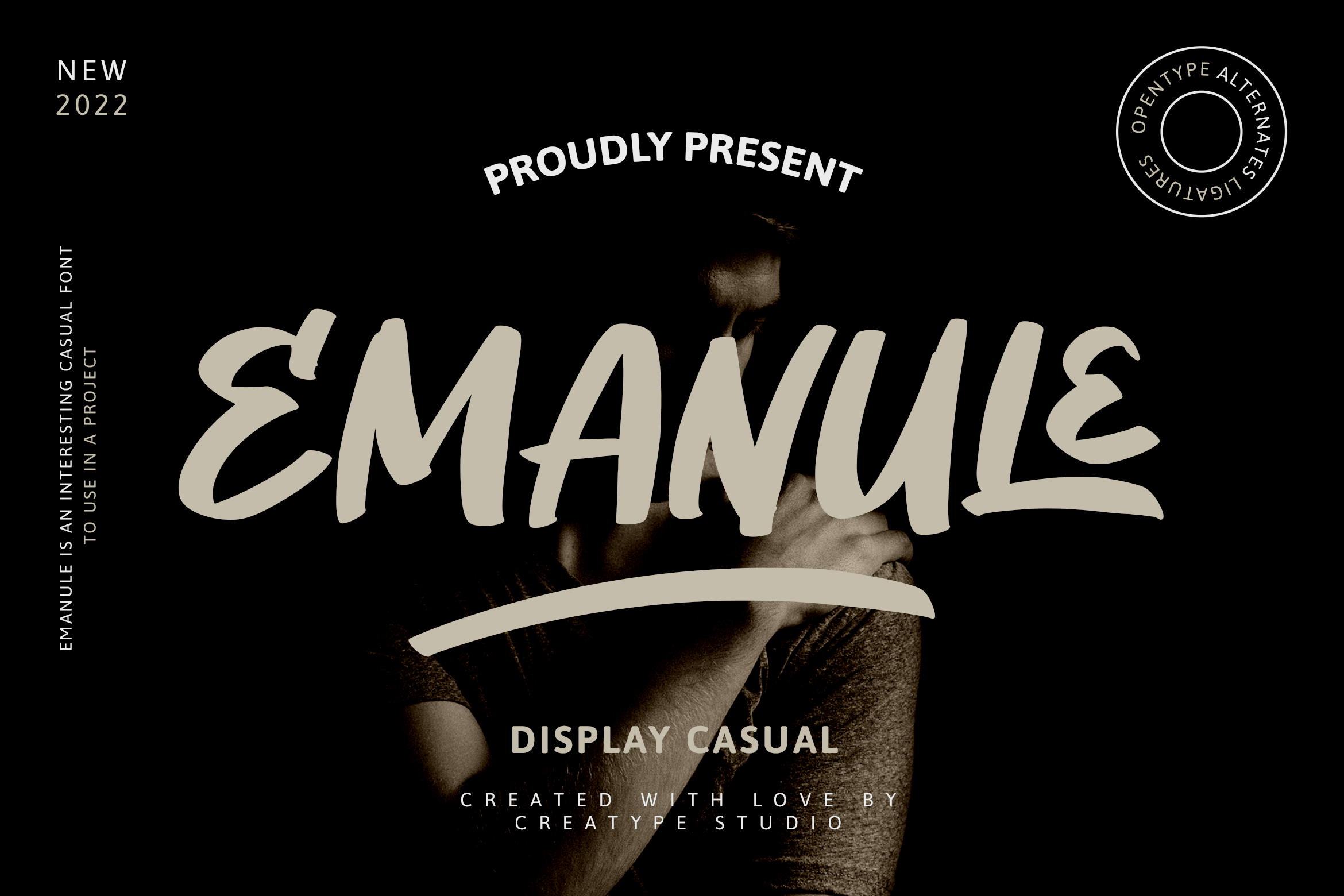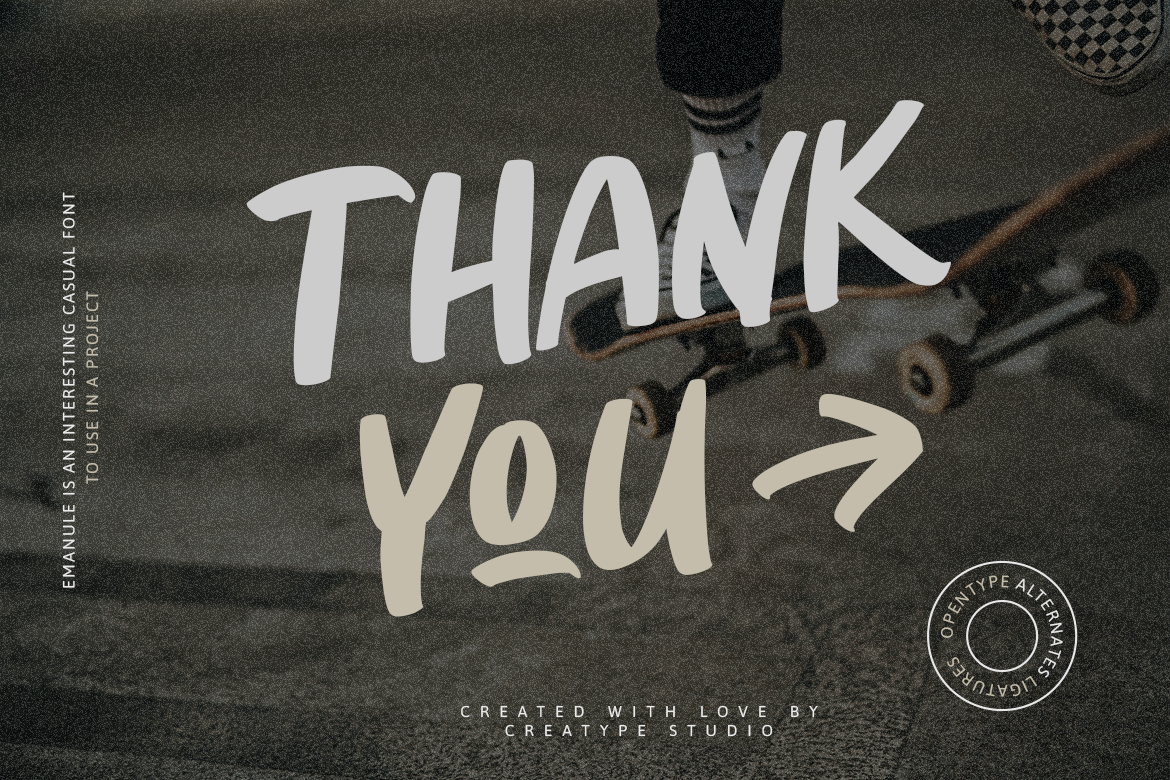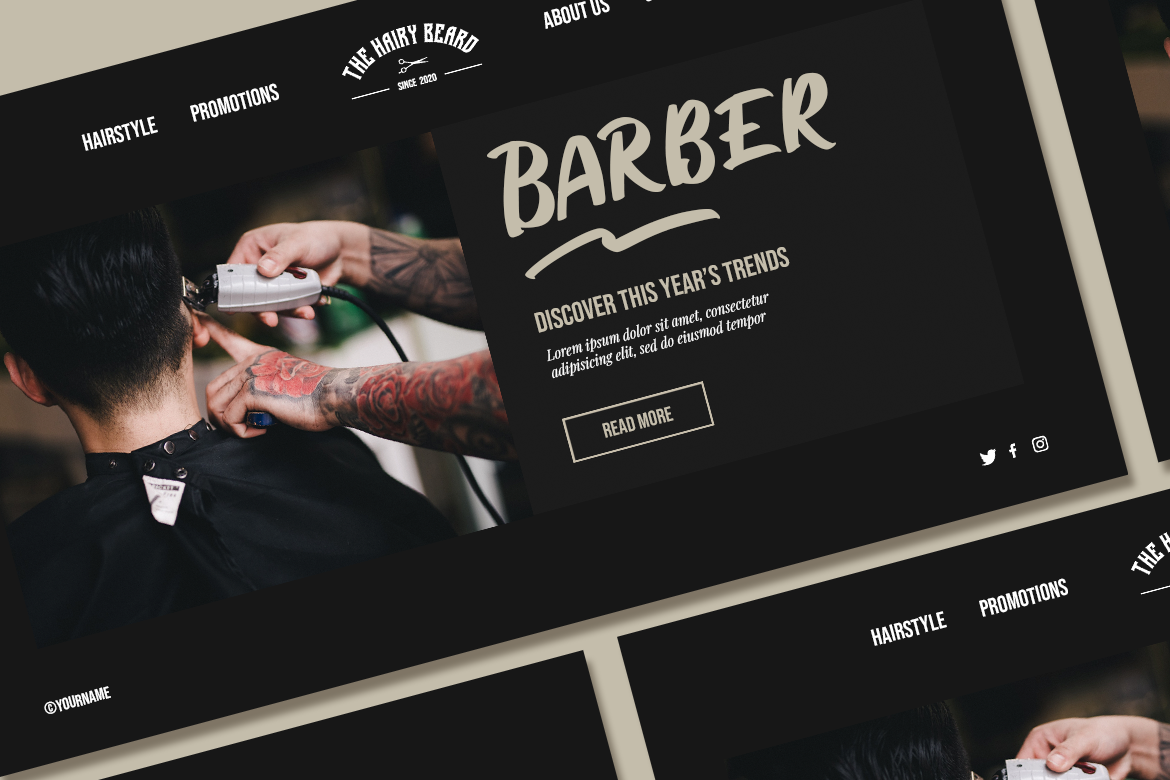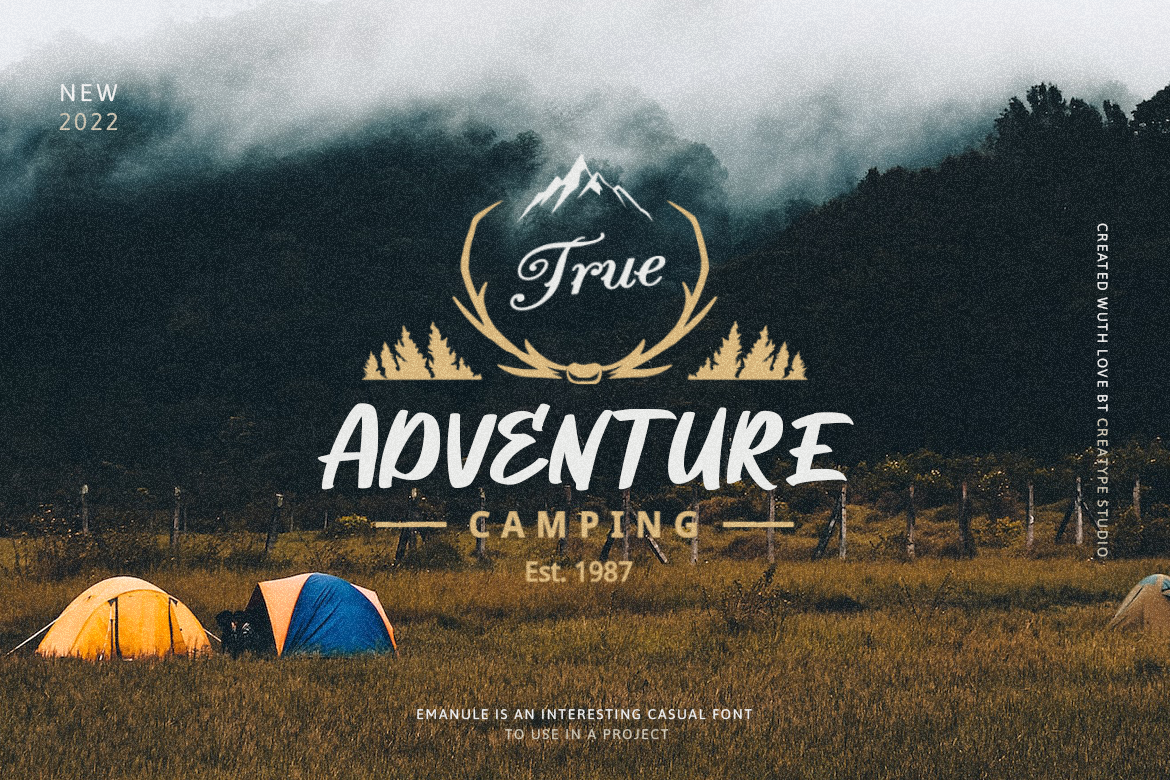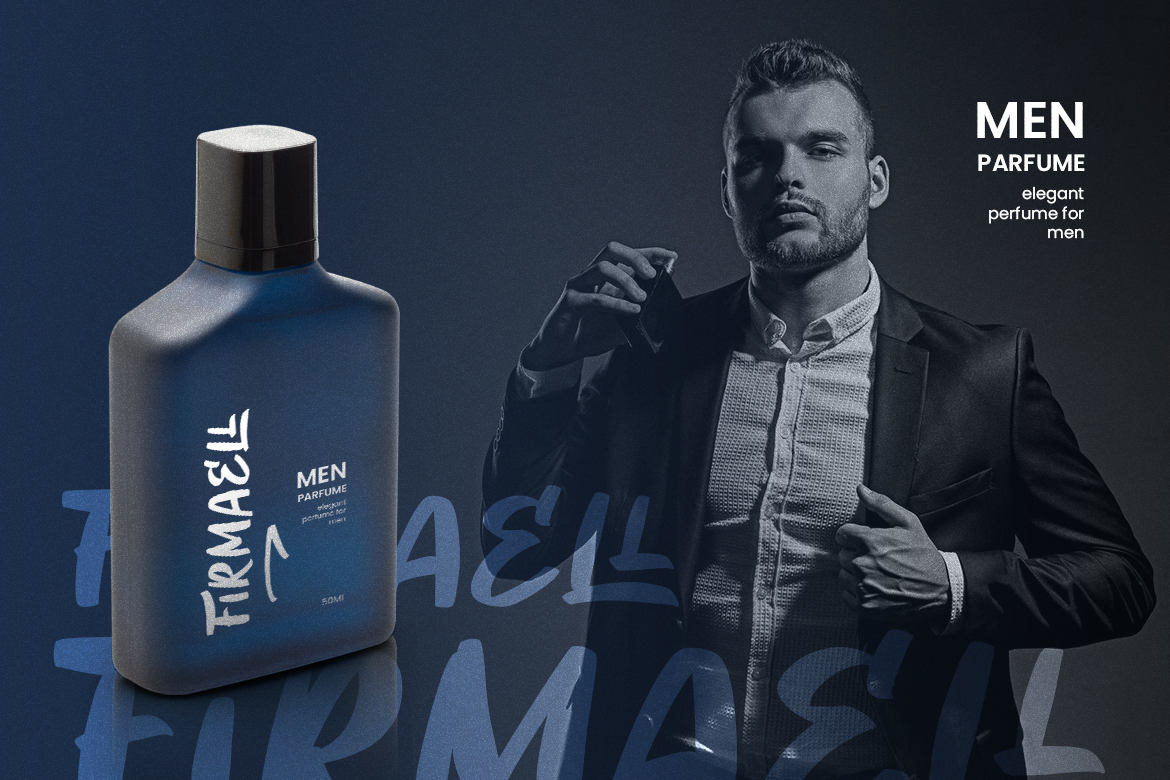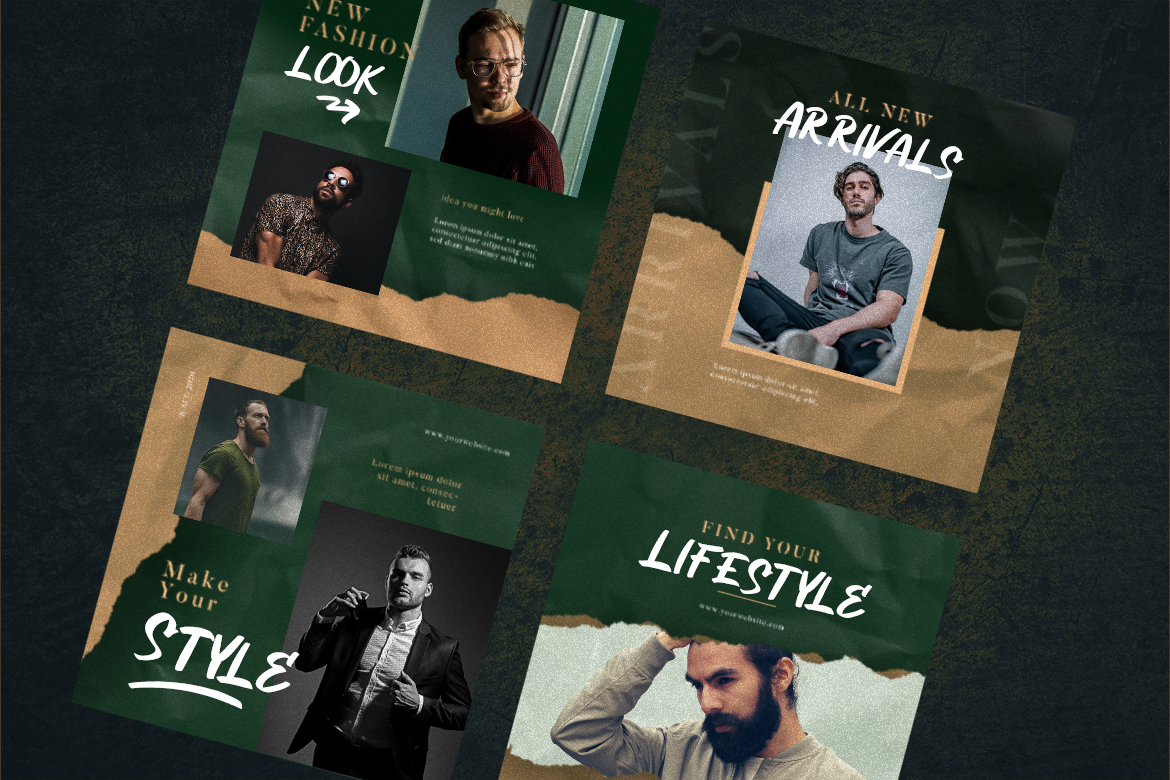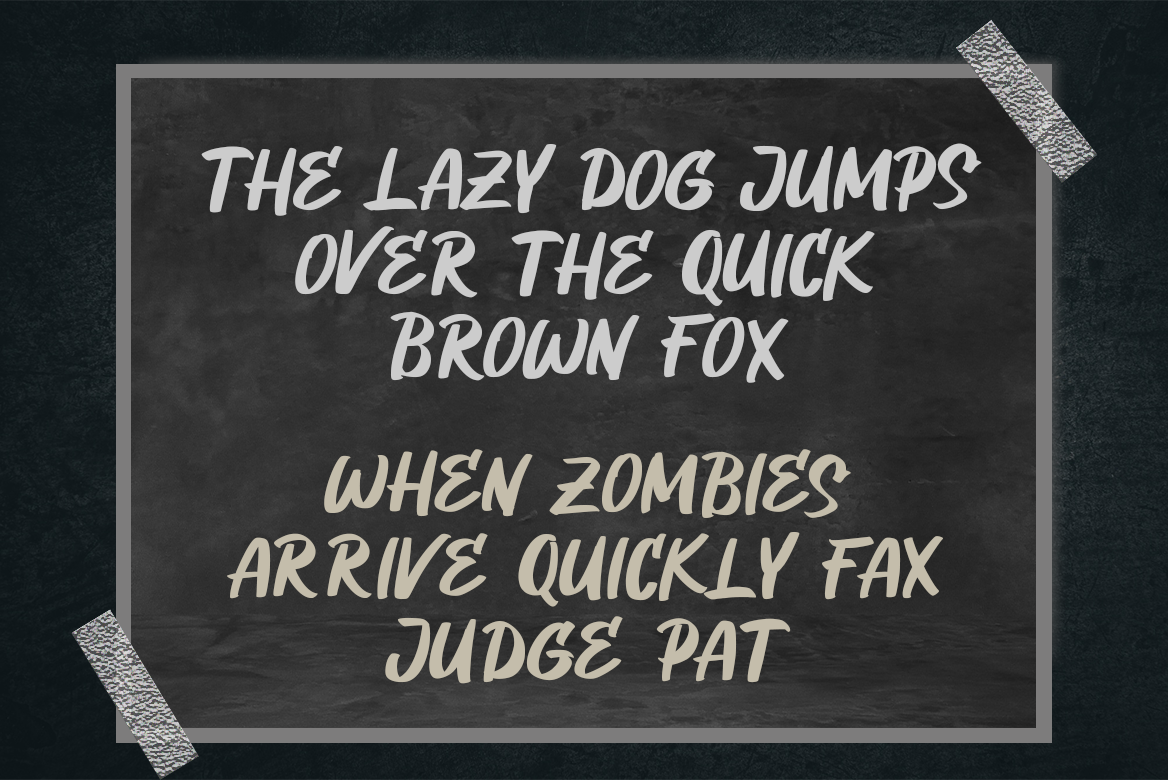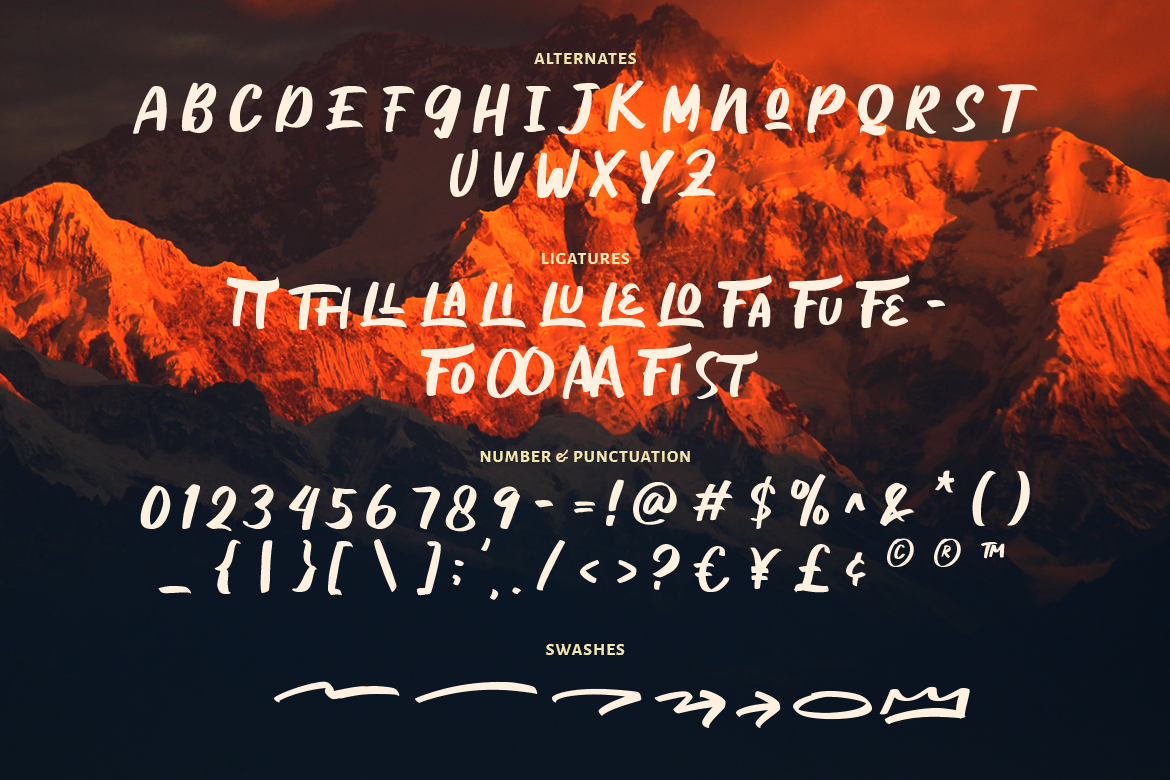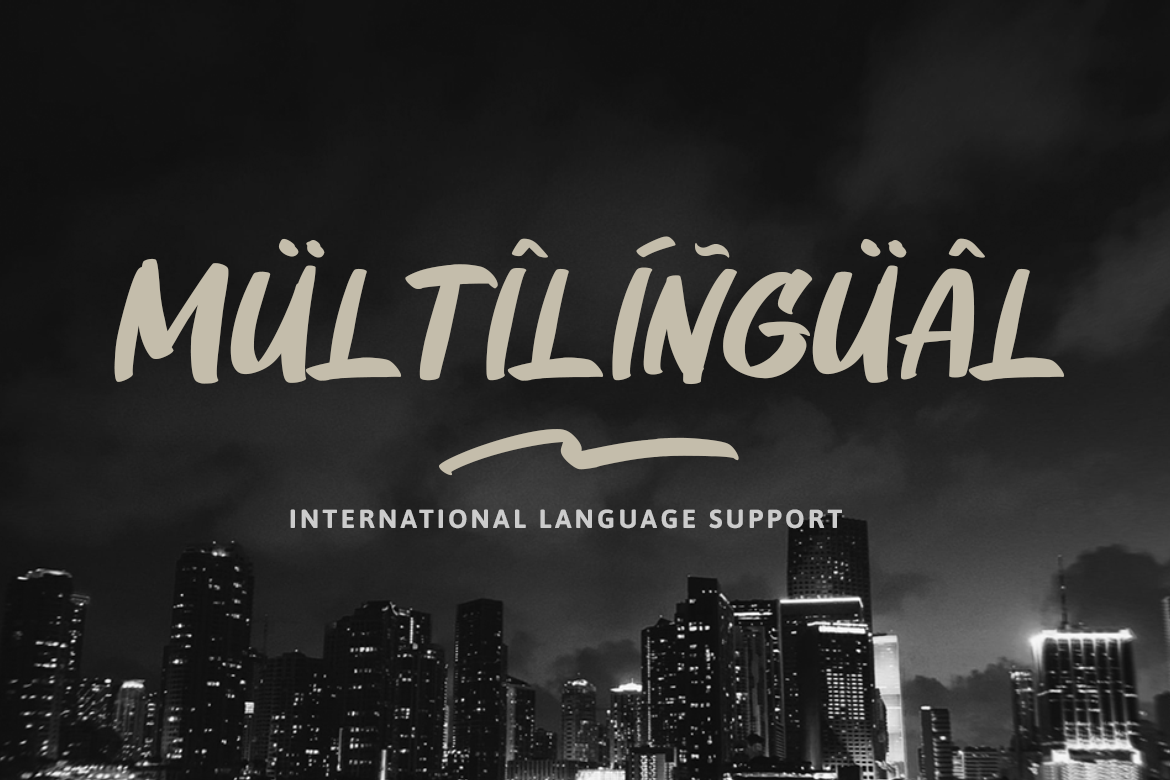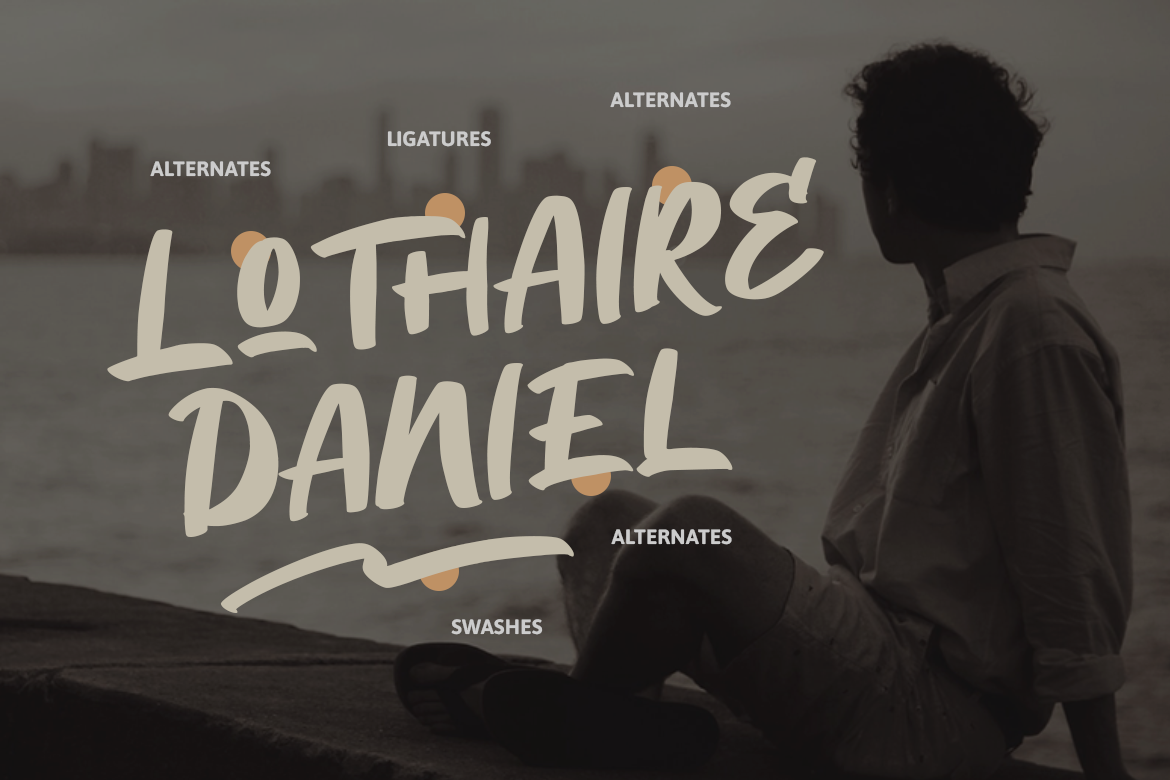
Emanule Display Casual
Emanule is a typeface with fun but bold looks. It gives you an urban vibe.
Emanule is perfect for branding projects, logo, wedding designs, social media posts, advertisements, product packaging, product designs, label, photography, watermark, invitation, stationery and any projects that need handwriting taste.
• Ton of glyphs
• Ligature & Alternate
• Fonts include multilingual support for; Afrikaans, Albanian, Czech, Danish, Dutch, English, Estonian, Finnish, French, German, Hungarian, Italian, Latvian, Lithuanian, Norwegian, Polish, Portuguese, Slovak, Slovenian, Spanish, Swedish.